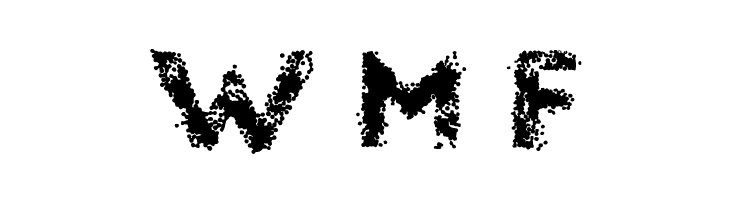
BeadworkDemo Font
A cursive font designed with a dotted, bead-like appearance.
Beady Font
A dot-based decorative font ideal for creative and playful designs.
Bubble Beads SemiBold Font
A decorative font with bead-like embellishments for a playful and artistic look.
Wood Beads Demo Font
Font by RaisProject
A bold, playful font with a woodcut, handcrafted appearance.
Bead Necklace Font
A playful, bead-like font composed of circular dots, perfect for decorative projects.
Bubble Pixel-7 Bead Font
A playful, pixelated font with bead-like characters, perfect for retro or tech-themed designs.
Bead Regular Font
A playful, handwritten font with thin, flowing lines and a whimsical style.
Beadwork Font
A dotted, script-style font with a playful and elegant appearance.